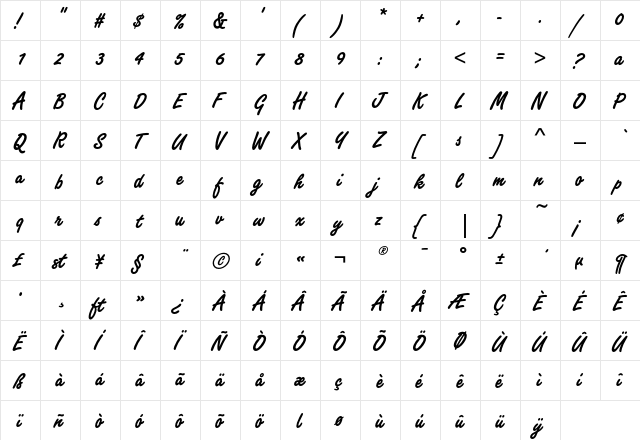
FreestyleScriptEF BoldAlt
Design Context for FreestyleScriptEF Typeface
FreestyleScriptEF brings a calligraphic fluidity to the page — its connecting strokes and expressive curves give it an unmistakably human quality. The heavy weight commands attention and anchors typographic hierarchies.
Font Pairing: Combine FreestyleScriptEF with a simple geometric sans for maximum contrast — the tension between flowing curves and clean structure is a classic typographic pairing.
Pro Tip: Use FreestyleScriptEF for short runs of text — names, titles, or taglines. Extended body copy in script faces tires the eye quickly.